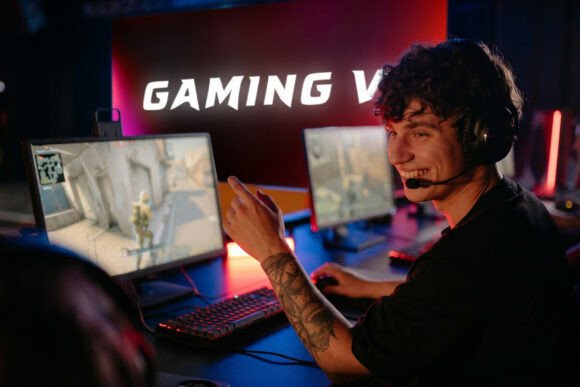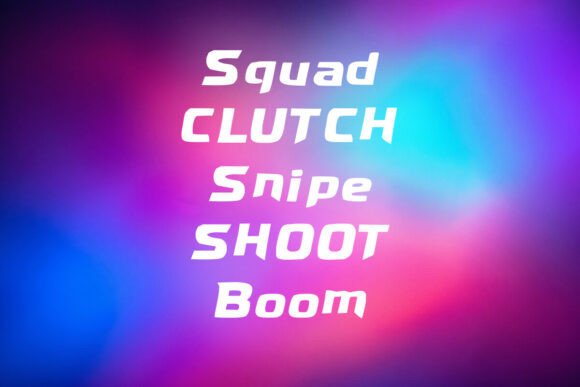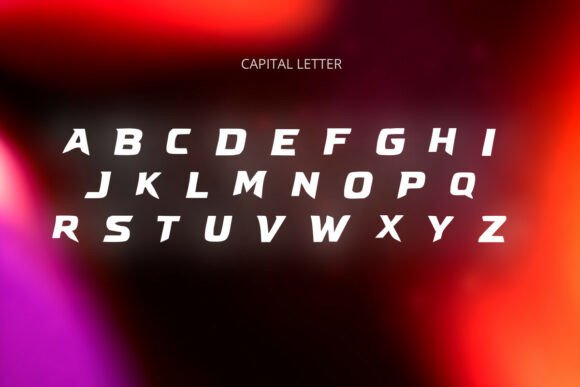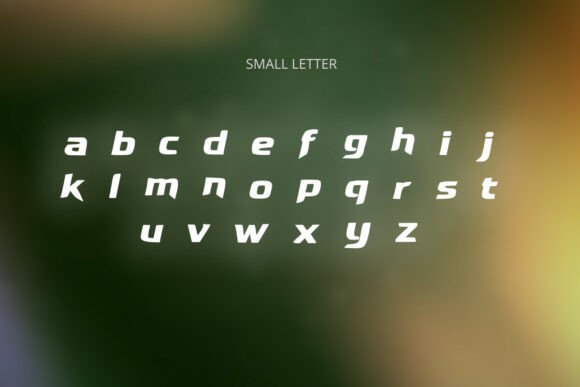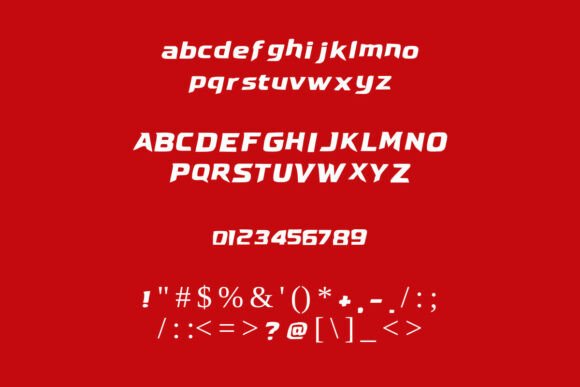
Unleash the Power of Gaming V: The Ultimate Font for Gaming and Esports
In the world of gaming and esports, visual identity is everything. A bold, eye-catching design can make all the difference in capturing the attention of your audience and setting your brand apart from the competition. That’s where Gaming V comes in – a revolutionary, bold, aggressive italic display font engineered specifically for the world of gaming, esports, and high-performance branding.
Precision-Engineered for Impact
Every letterform in Gaming V is built with precision, featuring sharp angles, confident weight, and a forward-leaning italic stance that communicates speed, dominance, and energy. This font is designed to deliver the intensity your audience expects and the legibility your design demands. Whether you’re designing an esports team logo, a gaming YouTube thumbnail, a Twitch overlay, a tournament bracket, or a game-inspired product label, Gaming V is the perfect choice.
Key Features of Gaming V
- Bold and Aggressive: Gaming V’s bold, aggressive design ensures that your brand stands out in a crowded gaming landscape.
- Italic Stance: The font’s forward-leaning italic stance conveys speed, dominance, and energy, perfect for high-performance branding.
- Sharp Angles: Precision-crafted sharp angles add to the font’s dynamic, edgy feel.
- Confident Weight: The font’s confident weight ensures legibility and impact, even at smaller sizes.
Use Cases for Gaming V
Gaming V is an incredibly versatile font, suitable for a wide range of applications, including:
- Esports Team Logos: Create a bold, intimidating logo that strikes fear into the hearts of your opponents.
- Gaming YouTube Thumbnails: Grab the attention of gamers with a thumbnail that’s both eye-catching and informative.
- Twitch Overlays: Elevate your stream’s visual identity with a font that’s both stylish and easy to read.
- Tournament Brackets: Make your tournament brackets stand out with a font that’s both bold and legible.
- Game-Inspired Product Labels: Add a touch of gaming flair to your products with a font that’s both edgy and sophisticated.
Why Choose Gaming V?
In a world where visual identity is paramount, Gaming V offers a unique combination of style, versatility, and impact. Here are just a few reasons why you should choose Gaming V for your next project:
- Unique Design: Gaming V’s precision-engineered design ensures that your brand stands out from the competition.
- High-Legibility: The font’s confident weight and clear letterforms ensure that your message is always communicated clearly.
Gaming V is more than just a font – it’s a statement of intent. With its bold, aggressive design and precision-engineered letterforms, this font is the perfect choice for anyone looking to make a lasting impact in the world of gaming and esports. Whether you’re a designer, a gamer, or a brand looking to elevate your visual identity, Gaming V is the ultimate tool for unleashing your creativity and dominating the competition.